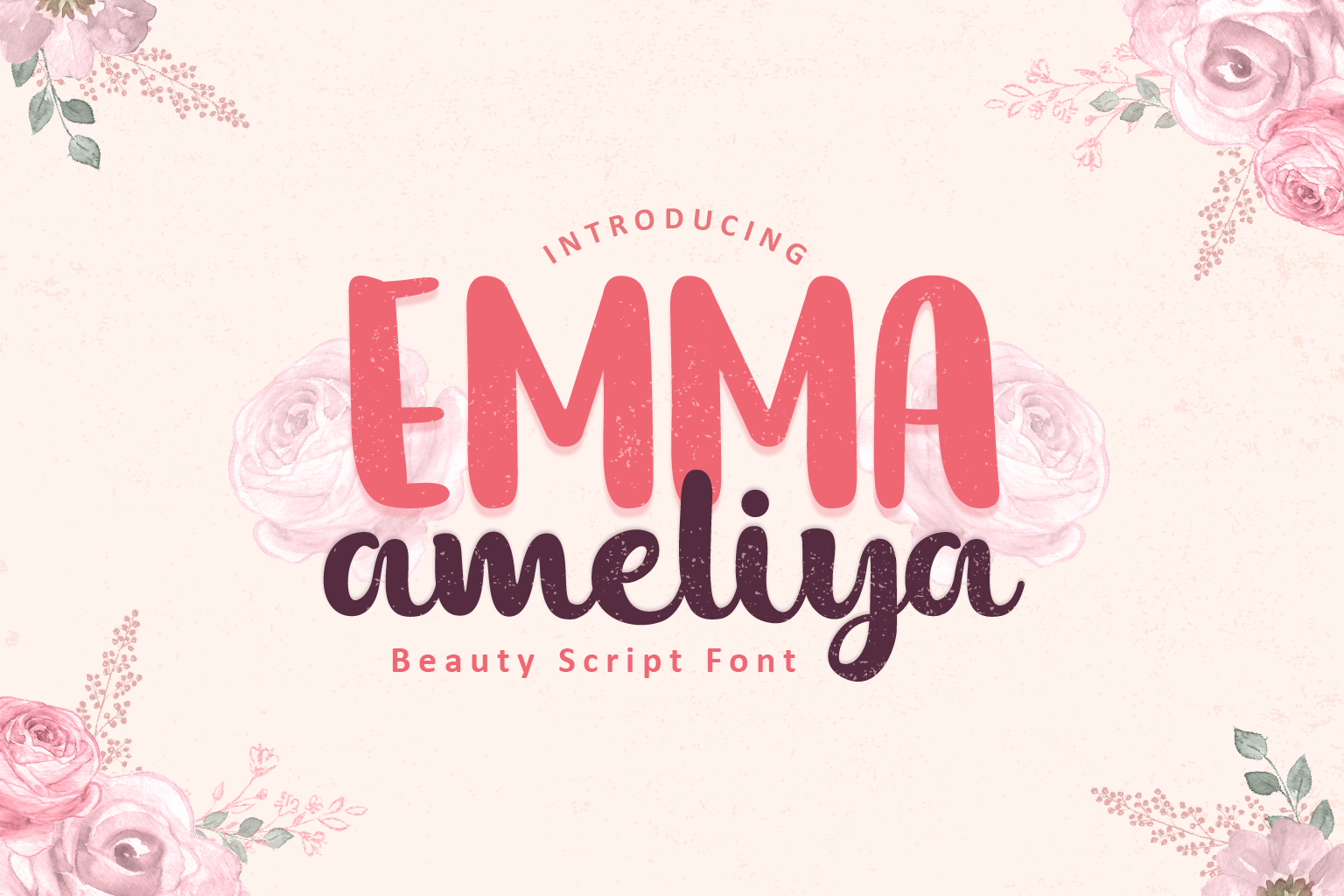
Emma Ameliya | Script Font
Emma Ameliya is a sweet caligraphy typeface. Beautifully designed and adorable, suitable to be applied to products such as wedding invitation, greeting cards, branding, labels, books cover and every other design which needs a handwritten touch. Thanks for checking out my shop, and feel free to get in touch! suntype07@gmail.com
- Standart alphabet (lowercase, uppercase and number)